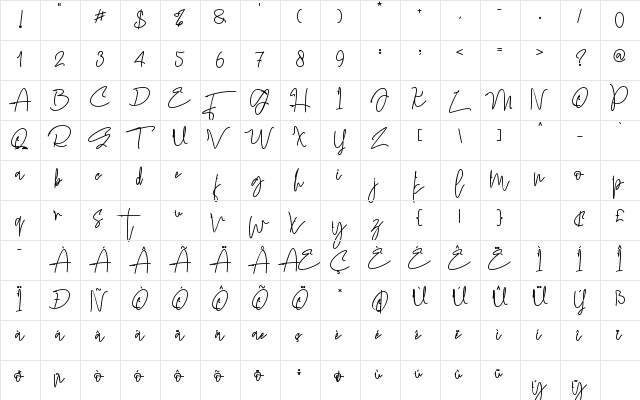
Ottbelix Regular
| Designer | Stefani Letter |
Design Context for Ottbelix Typeface
Ottbelix is a composed and adaptable typeface that performs quietly and consistently across a wide range of design contexts.